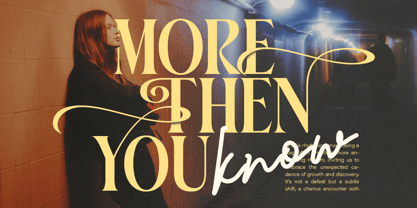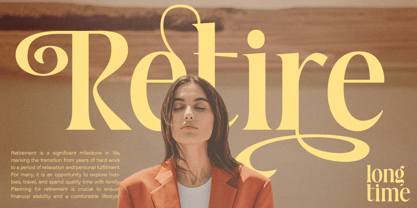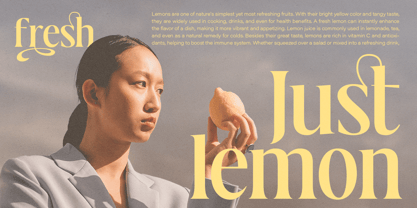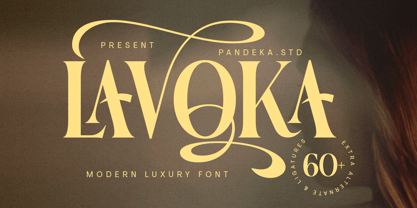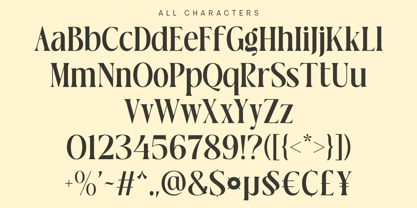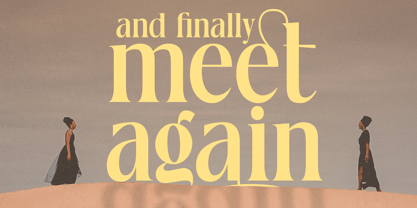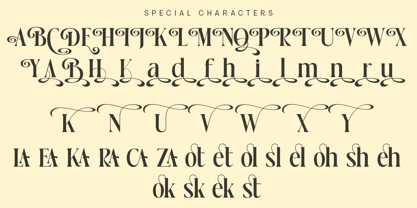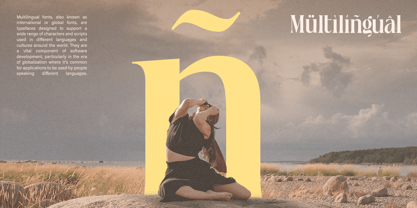
Lavoka
by Pandeka Studio
The Lavoka Font Family was designed by Sagara Nararya and published by Pandeka Studio. Lavoka contains 1 styles. More about this family
Lavoka – Modern Luxury Serif
Lavoka is an elegant serif typeface featuring 60+ ligatures and alternates, designed for modern luxury branding, cinematic titles, high-end packaging, editorial layouts, and premium invitations. With multilingual support and OpenType features, it brings a sophisticated, timeless, and chic aesthetic to any project.
• 60+ Ligatures and Alternates